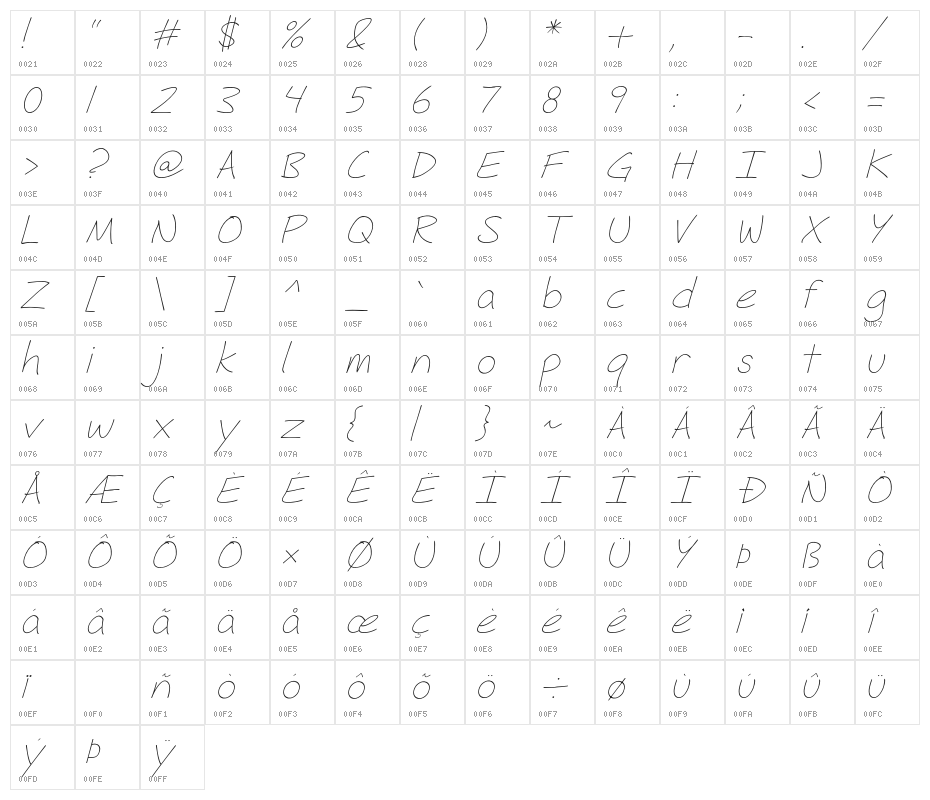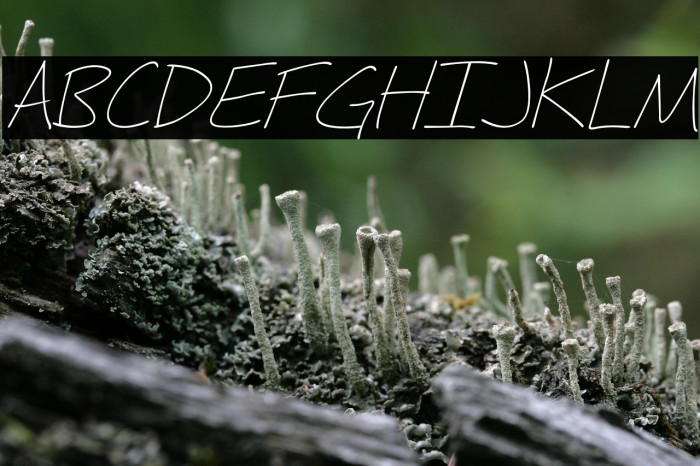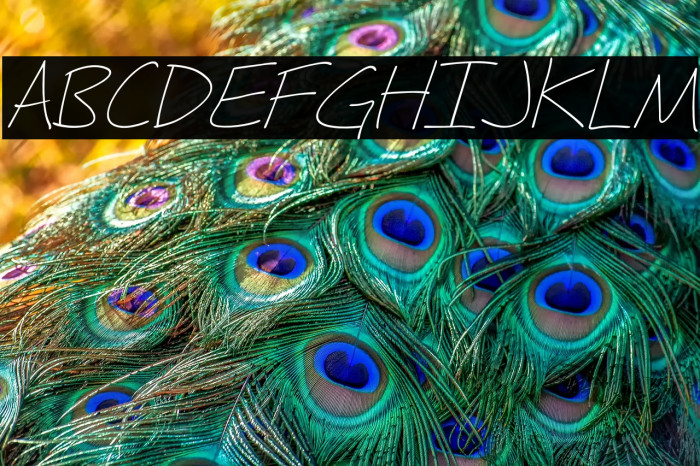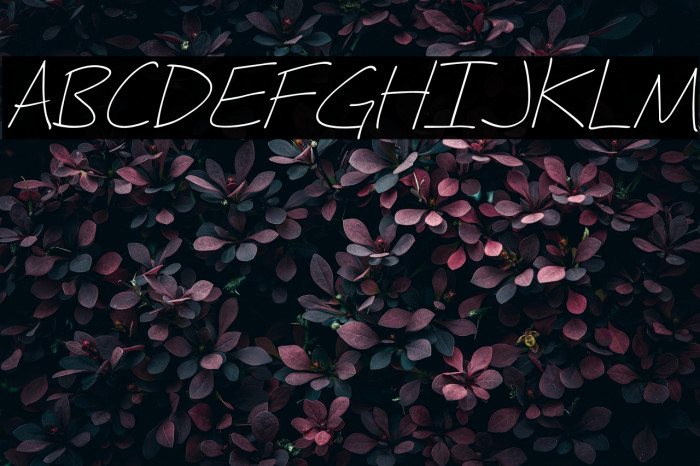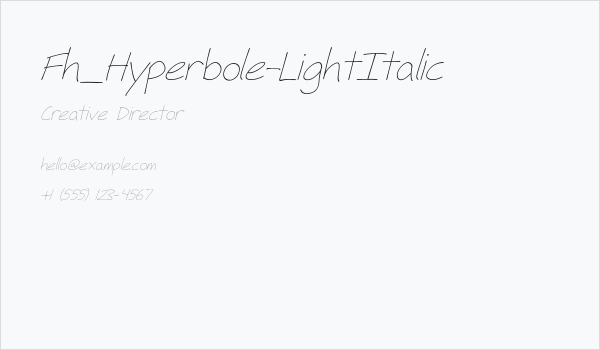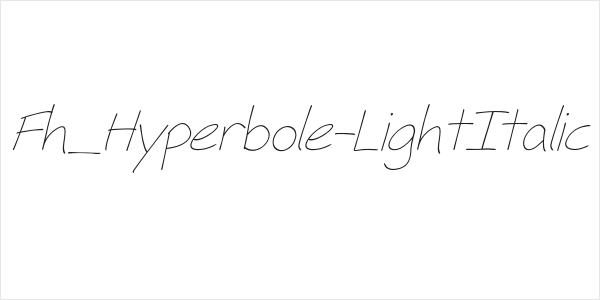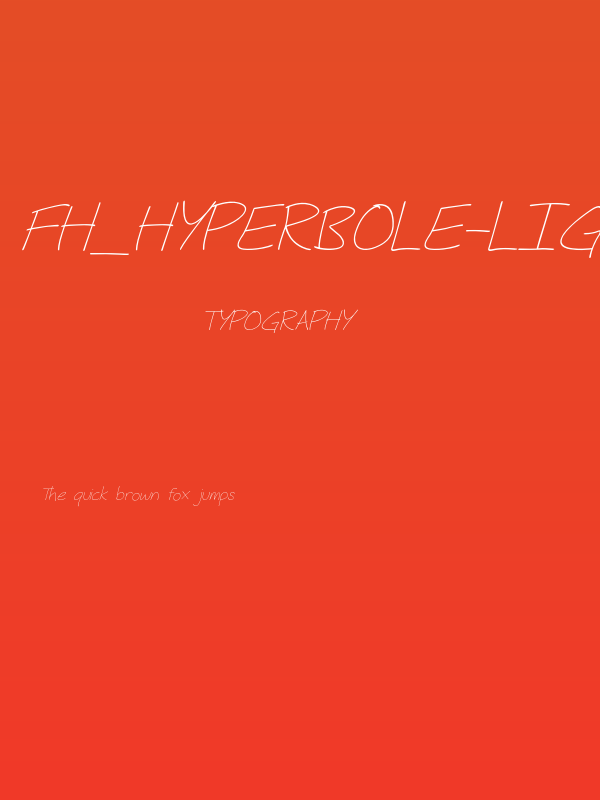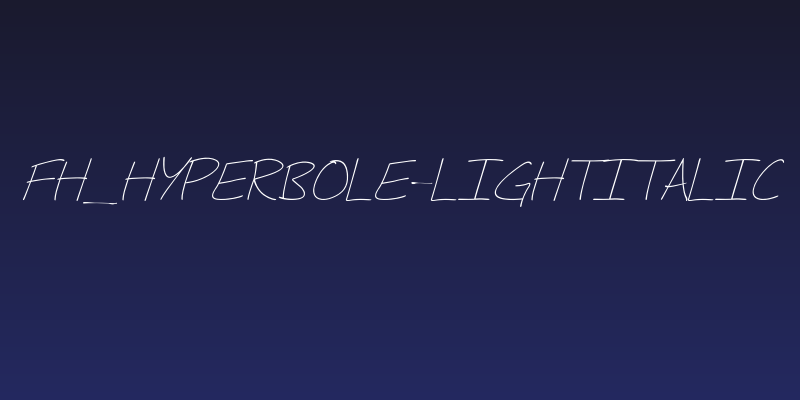
Fh_Hyperbole-LightItalic Font
Fh_Hyperbole-LightItalic Description
This font features a light and airy design with a handwritten, italic style. The characters are elongated and slightly slanted, giving a sense of movement and elegance. The strokes are thin and consistent, providing a delicate appearance. The uppercase and lowercase letters maintain a cohesive look, with smooth curves and minimal embellishments. Numbers and special characters follow the same aesthetic, ensuring uniformity across all glyphs. The overall impression is one of sophistication and modernity, making it suitable for projects that require a personal touch.
| Use Case | Logos, Invitations, Greeting cards |
| Proposed Projects | Ideal for personal branding, invitations, greeting cards, and creative projects that require a touch of elegance and modernity. |